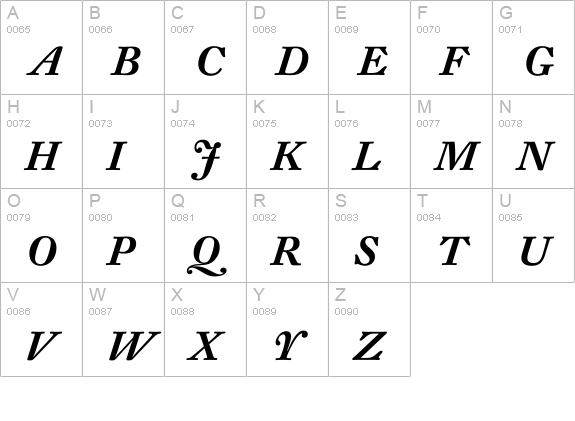
DTL Fleischmann T Medium Italic is a balanced, medium-weight, italic variant in the DTL typeface family \xE2\x80\x94 well suited to sub-headlines, navigation, and balanced editorial work.
The DTL Fleischmann T Medium Italic font is a beautifully crafted typeface that strikes the perfect balance between elegance and readability. With its subtle slant and medium weight, this italic variant of the classic Fleischmann design adds a touch of sophistication to any project. Featuring graceful curves and a timeless aesthetic, DTL Fleischmann T Medium Italic is ideal for conveying a sense of refinement and style in both print and digital media. Whether used for body text or headlines, this font exudes a sense of professionalism and attention to detail. Best of all, DTL Fleischmann T Medium Italic is available for free download at FontsMarket.com, making it easily accessible to designers, typographers, and enthusiasts alike. Embrace the beauty and versatility of this font in your next project and elevate your designs to new heights of visual excellence.